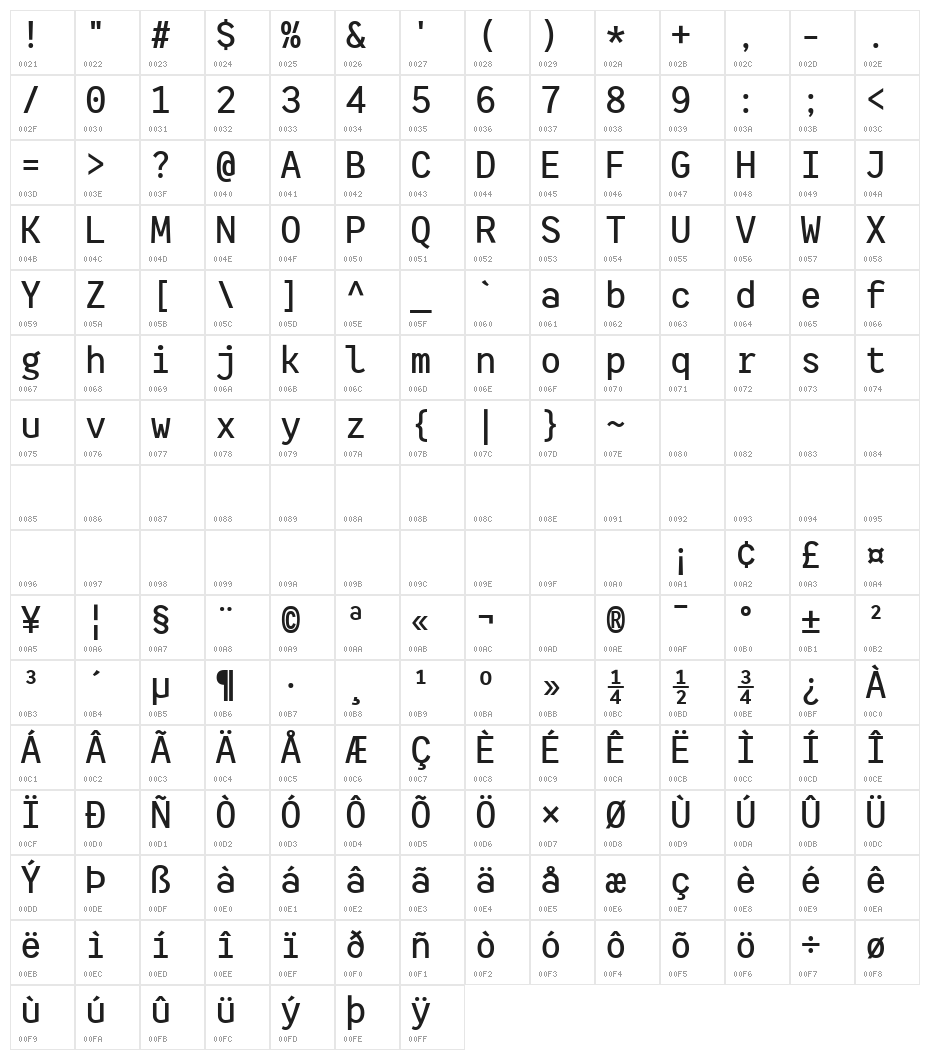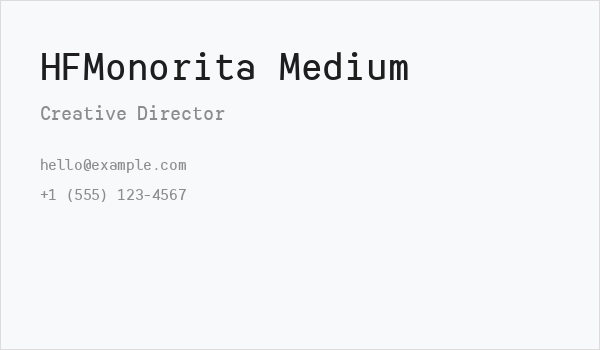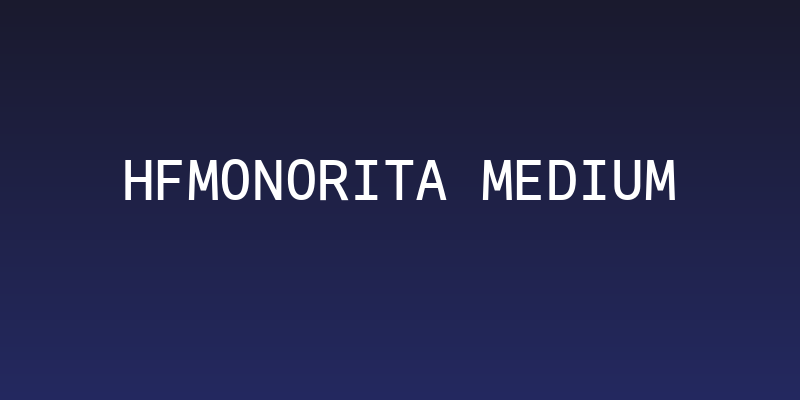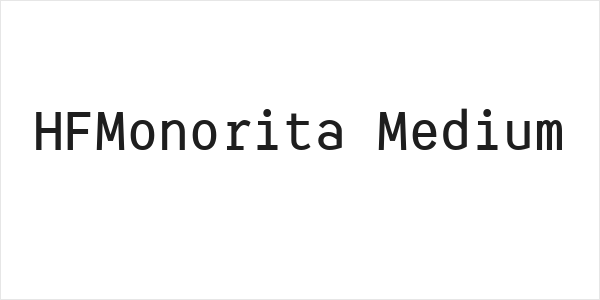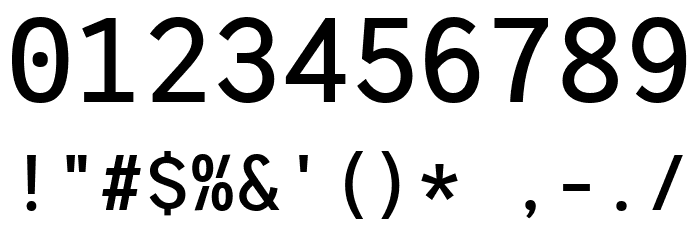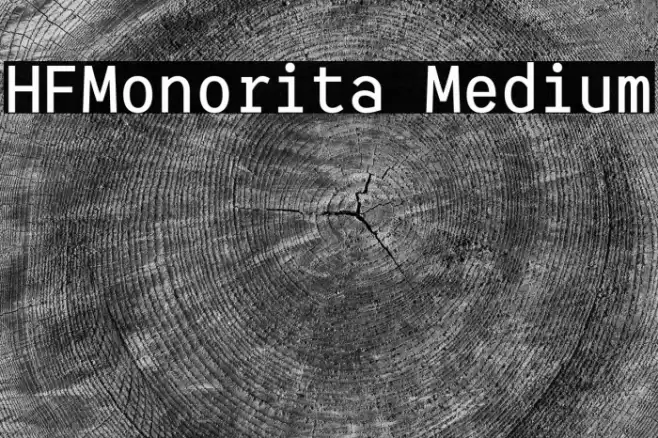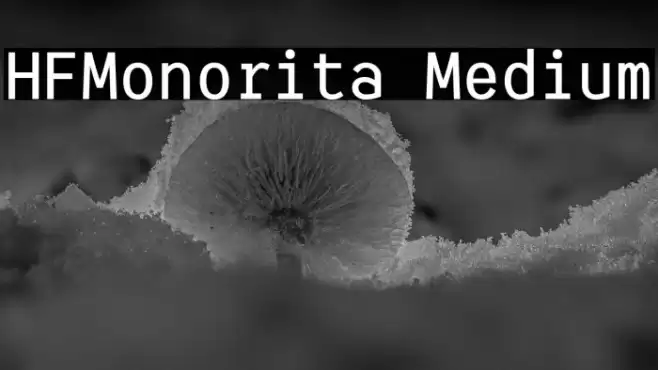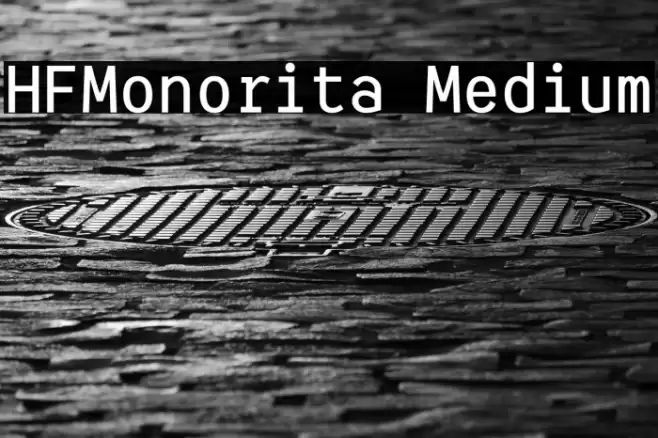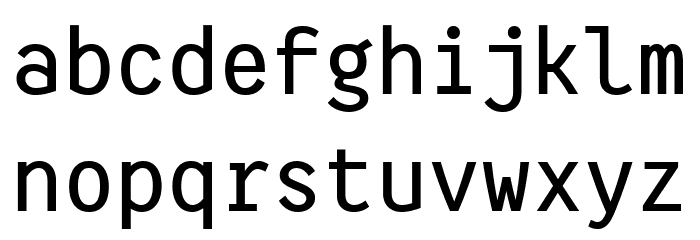
HFMonorita Medium Font
HFMonorita Medium Description
This font features a clean, monospaced design with consistent character width, making it ideal for coding and technical documents. The characters are well-defined with a modern aesthetic, providing excellent readability. The uppercase and lowercase letters maintain a uniform appearance, while the numerals are distinct and easy to differentiate. Special characters are clearly defined, enhancing the font's utility in various contexts. The overall style is straightforward and functional, suitable for both digital and print media.
| Proposed Projects | Ideal for coding environments, technical documentation, and any project requiring clear, uniform text presentation. |